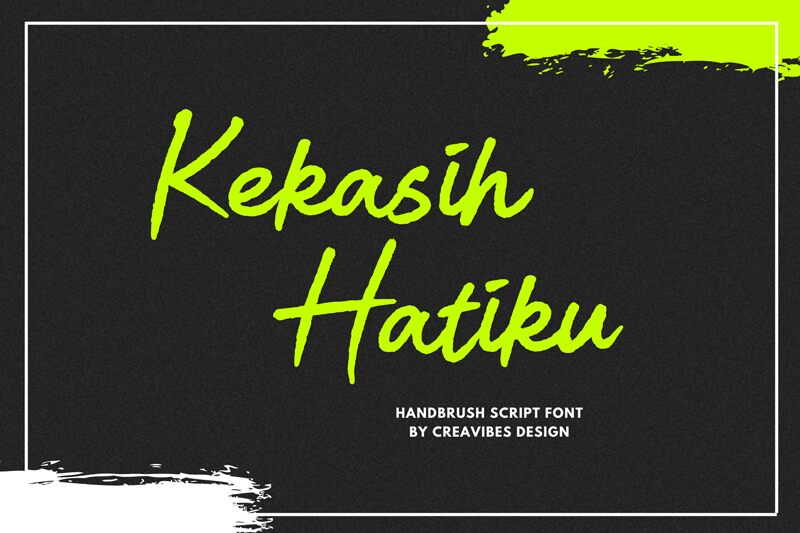
Kekasih Hatiku
Kekasih Hatiku font designed by Creavibes Design is a handwritten font full of expressive, personal, and emotional warmth. It combines modern aesthetics with a pinch of casual elegance and contemporary flair. This free handwritten font can definitely make the best out of your designs.
Use Kekasih Hatiku in packaging, branding, book writing/cover designs, invitations, posters, stationery designs such as bookmarks or notebooks/casual diaries. Whether it’s an extended text usage for content or short texts like headings and highlighted quotes excerpted from the text; nothing is off-limit!